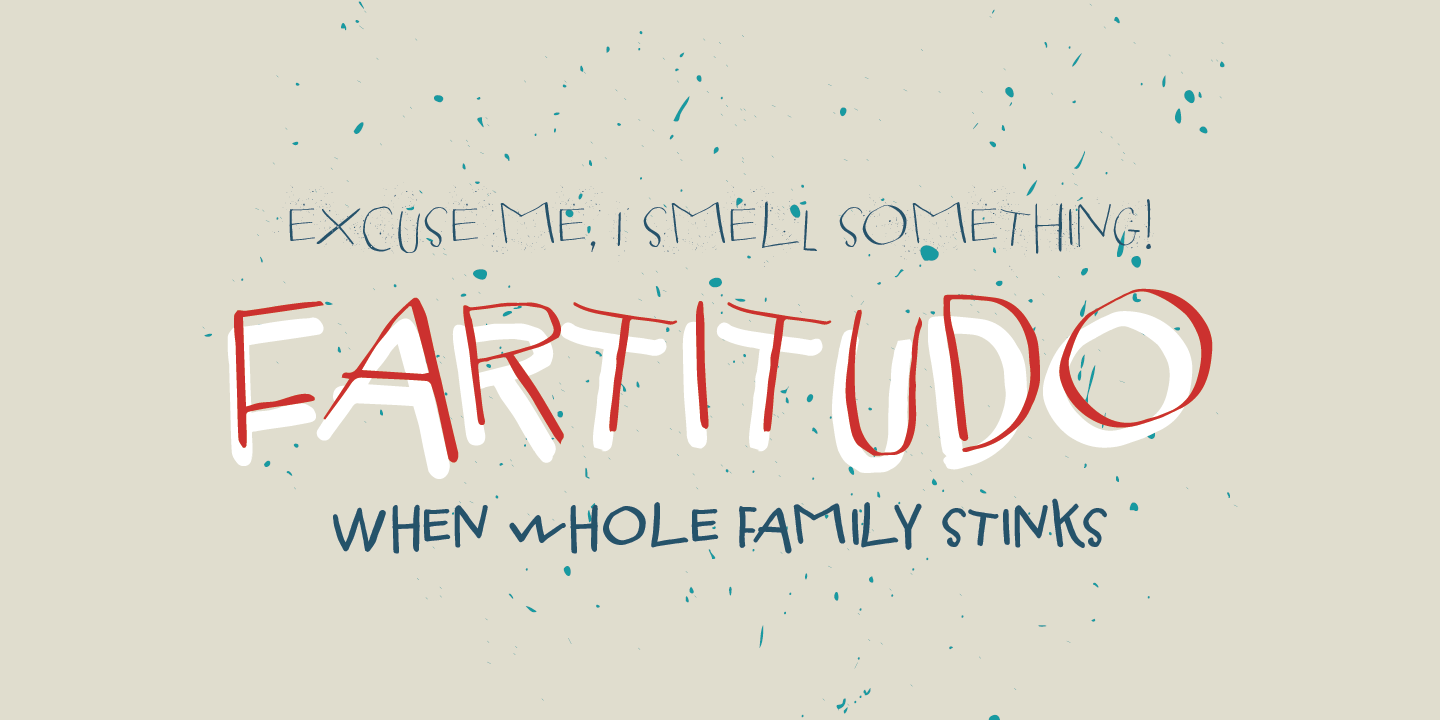
Looking for a bold and unique typeface that makes your designs stand out with confidence? Fartitudo Font Free Download offers a striking, modern style that commands attention. Perfect for branding, headlines, posters, and any creative project that needs an edgy, powerful presence.
Whether you're designing for a startup, a fashion label, or a creative campaign, Fartitudo Font Free Download adds energy and uniqueness to your visual message. The font’s confident style ensures your content will be noticed and remembered.